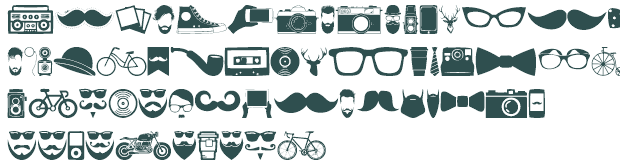
Hipster Icons Font Download
Hipster Icons Font Download. In web design, however, hipster design or font means something modern but with a vintage retro vibe. By installing or using this font, you are agree to the product usage agreement:
All fonts are in truetype format. Irrespective of the type of design project that you are working on, hipster fonts would undeniably enhance the beauty and splendor of that particular project. In simple word it’s very confounding to be completely forthright however in graphic design and typography being “hipster” means having a unique and to some degree vintage look without being obsolete.
These Definitions May Be Quite Confusing, But What We Know For Sure Is That Hipster Fonts Should Be Simple, Chic, And Minimalist.
Hipster font that meaning only says that a trendy person is an individual who stays refreshed with the latest trends. Irrespective of the type of design project that you are working on, hipster fonts would undeniably enhance the beauty and splendor of that particular project. This font for personal use.
Hipster icons regular hipster icons:version 1. In simple word it’s very confounding to be completely forthright however in graphic design and typography being “hipster” means having a unique and to some degree vintage look without being obsolete. Poster for menu, bar, pub, restaurant, cafe, food court.
In Web Design, However, Hipster Design Or Font Means Something Modern But With A Vintage Retro Vibe.